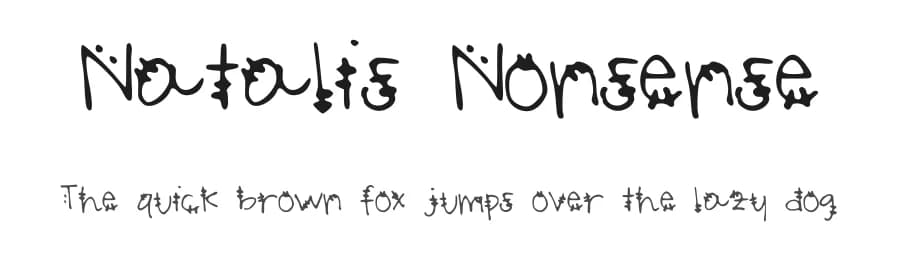
About Natalis Nonsense Font
Natalis Nonsense is a script & handwritten font designed by Natali Hall. It includes 143 glyphs, a medium weight, TTF (TrueType) format, and 133 languages. Natalis Nonsense is free to download; check the license details on this page before commercial use. Script & handwritten fonts like Natalis Nonsense work best for wedding invitations, greeting cards, signatures, and elegant branding.
Natalis Nonsense Font is a script font that shines as a display or heading face. Pair it with a clean sans-serif or serif font for body text β the contrast creates a clear hierarchy while the two styles stay balanced and easy to read.
Natalis Nonsense Font
by Natali Hall
Natalis Nonsense Font is a script handwritten typeface by Natali Hall, ideal for logos, invitations, branding, and creative projects.